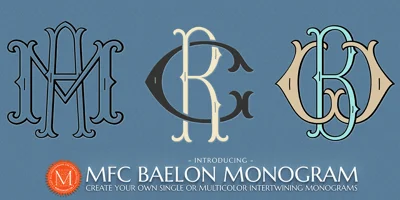
MFC Baelon Monogram Font
The MFC Baelon Monogram Font is an exquisitely designed typeface, specifically crafted for creating elegant and sophisticated monograms, initials, and decorative lettering. Imagine its intricate and often intertwined characters gracing bespoke wedding invitations, adding a luxurious touch to high-end personalized stationery, or creating distinctive brand marks for luxury goods and artisanal crafts. Its refined aesthetic and often swash-like elements also make it an excellent choice for custom embroidered linens, sophisticated glassware etching, unique gift tags, and any design where a touch of personalized elegance is desired. Whether you're aiming for a classic, ornate look or a more contemporary, personalized emblem, MFC Baelon Monogram Font delivers with its unique artistry, ensuring your visuals are both exclusive and memorable.
What makes MFC Baelon Monogram Font so exciting is its specialized design for creating truly unique and personalized visual identities. In an era where custom branding and individual expression are highly valued, this font offers a powerful tool to craft bespoke designs that stand out. It’s more than just a typeface; it’s a creative solution that allows designers to transform simple initials into works of art, adding a level of sophistication and handcrafted appeal that is difficult to achieve with standard fonts. Its intricate details and interlocking possibilities make it a fascinating and highly desirable asset for anyone looking to create truly distinguished and personal designs.
The MFC Baelon Monogram Font family is typically structured to offer a range of styles and specific functionalities dedicated to monogram creation. Beyond the primary MFC Baelon Monogram Regular (which might include left, center, and right character sets for interlocking), you may find companion styles such as a MFC Baelon Monogram Italic for a more flowing feel, or perhaps a MFC Baelon Monogram Bold for a stronger presence when used in display settings. Crucially, these specialized fonts often come with extensive ligatures, alternate characters, and even dedicated swashes that allow letters to connect seamlessly and elegantly, forming a cohesive monogram. These diverse family members provide designers with the flexibility to create intricate and beautiful personalized typography, ensuring every custom design is unique and visually stunning.
For projects demanding personalized elegance, intricate detail, and a touch of bespoke luxury, consider the exquisite MFC Baelon Monogram Font. It's an excellent choice to craft truly unique visual identities.